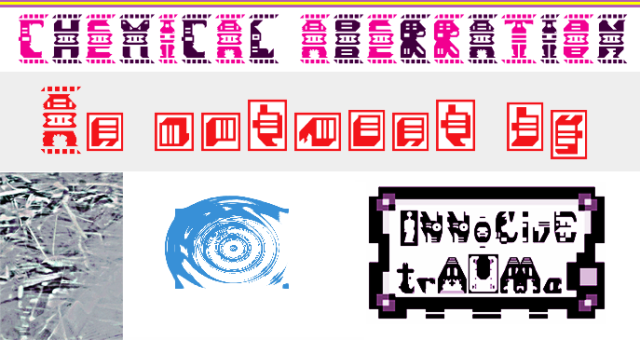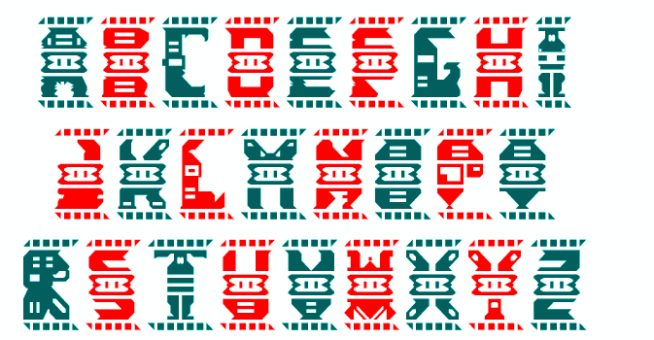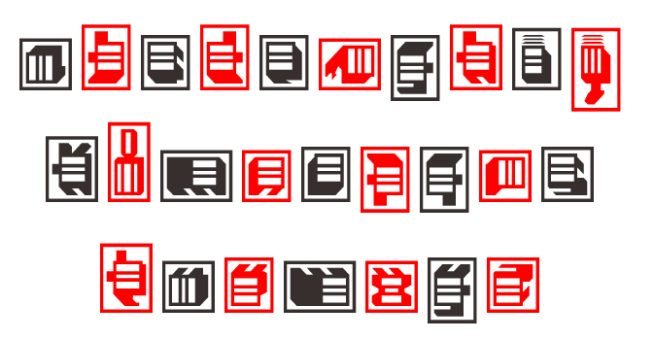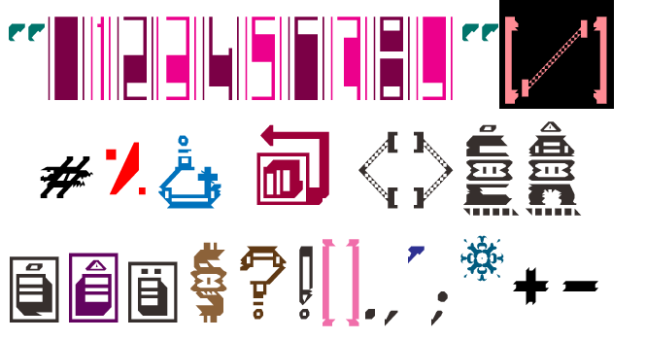
trAUMa 36 / Chemical Aberration
"Chemical Aberration", like all the "trAUMa" series, works at the frontier between Art & Type Design, Figuration & Abstraction, each font is a comprehensive world in which every glyph is a "living" entity. But put together they can produce your messages in the most accurate way.